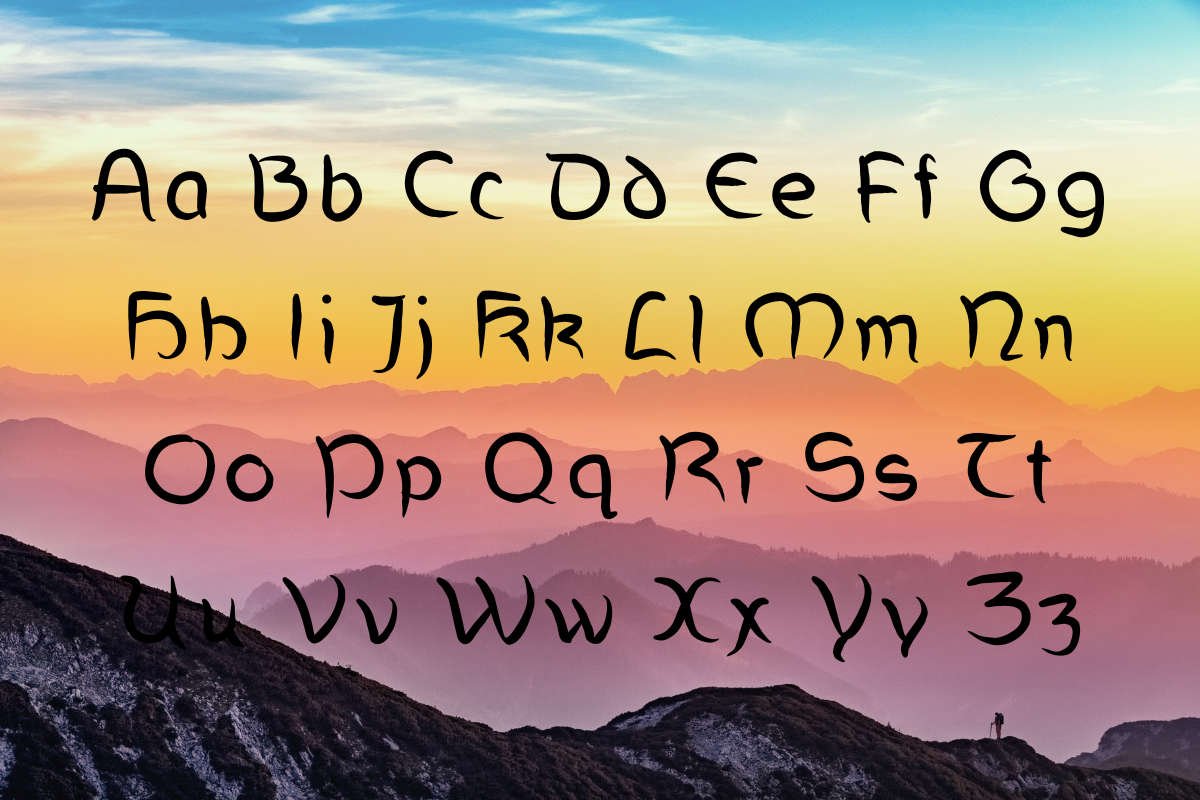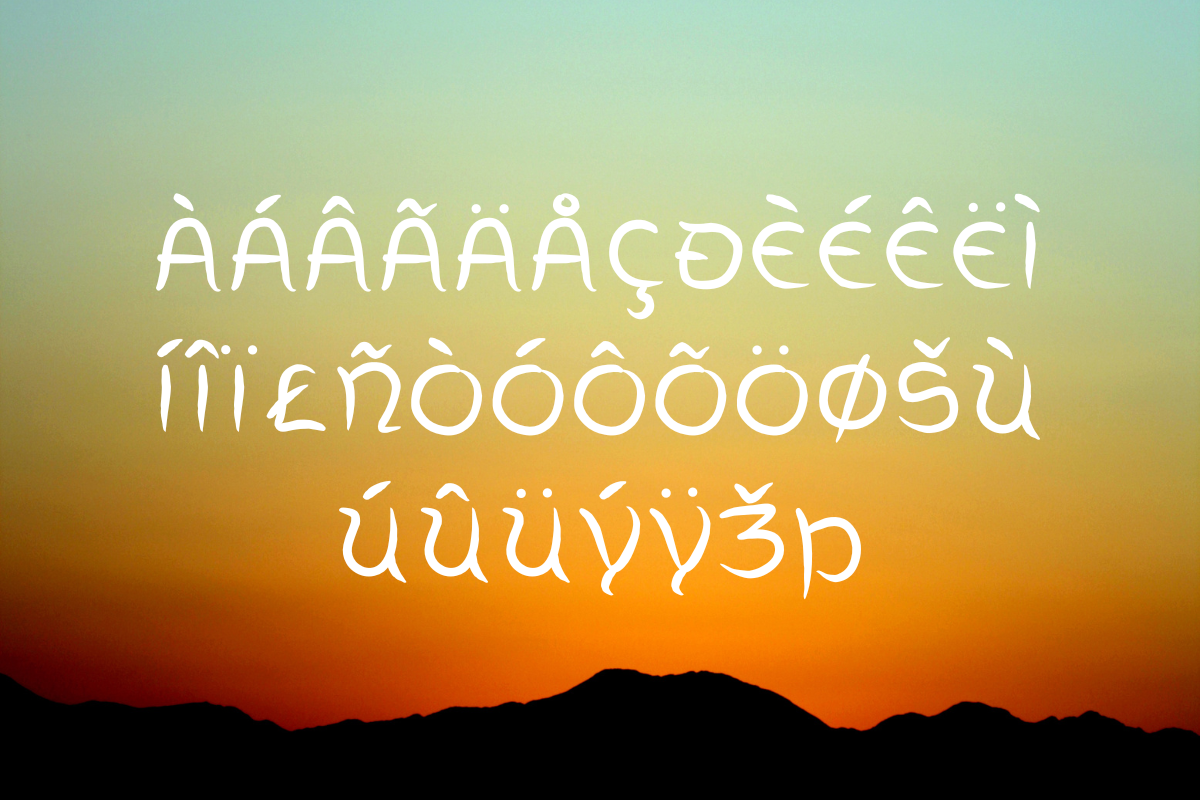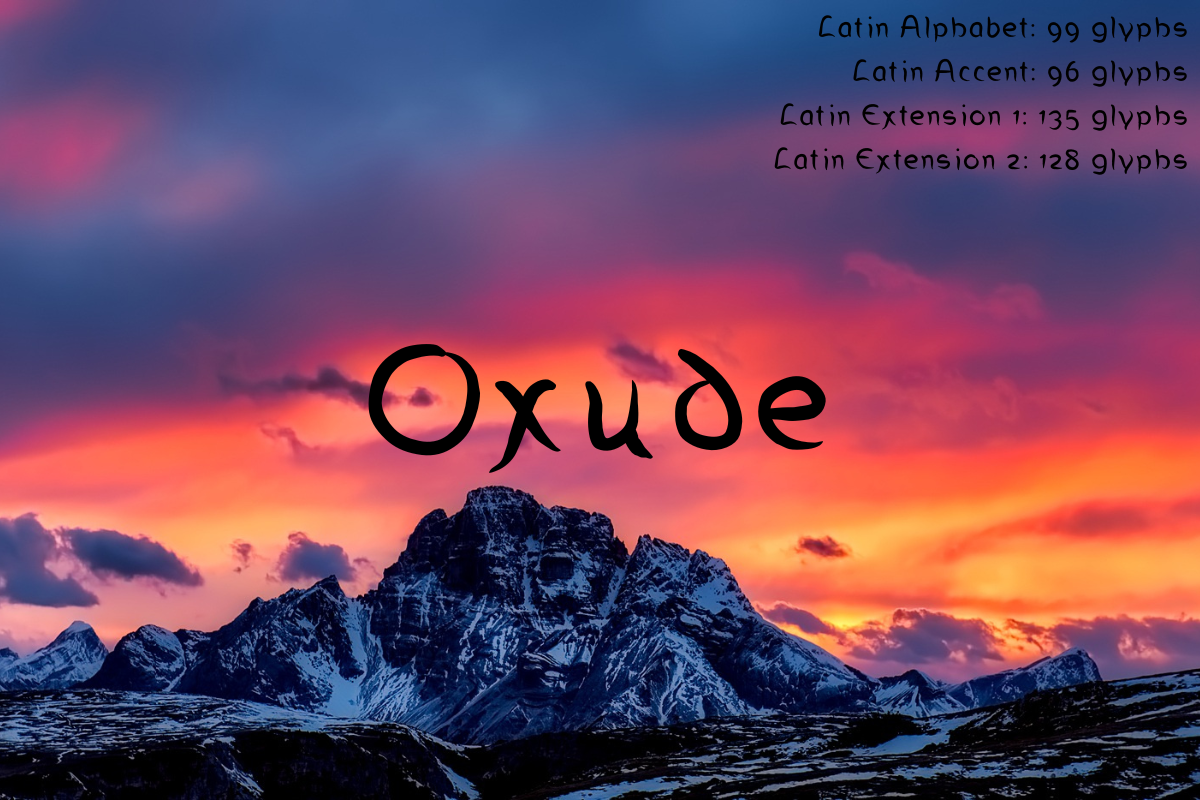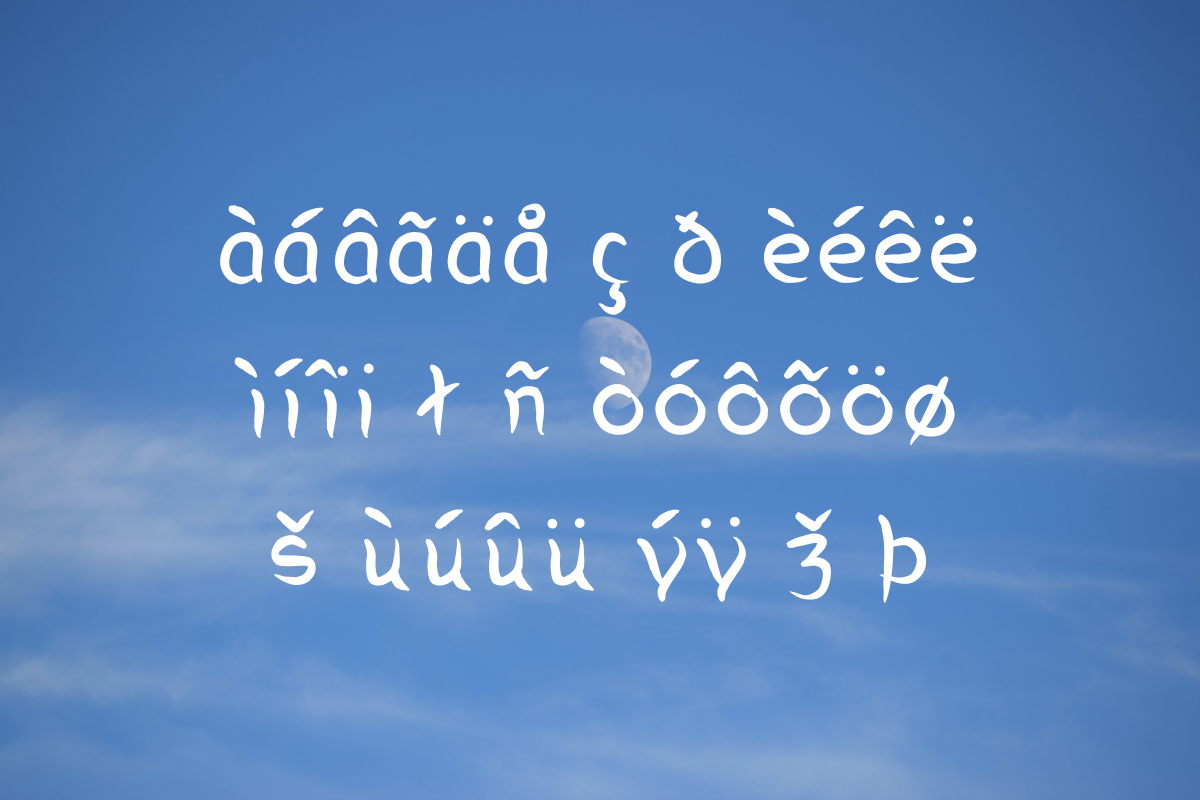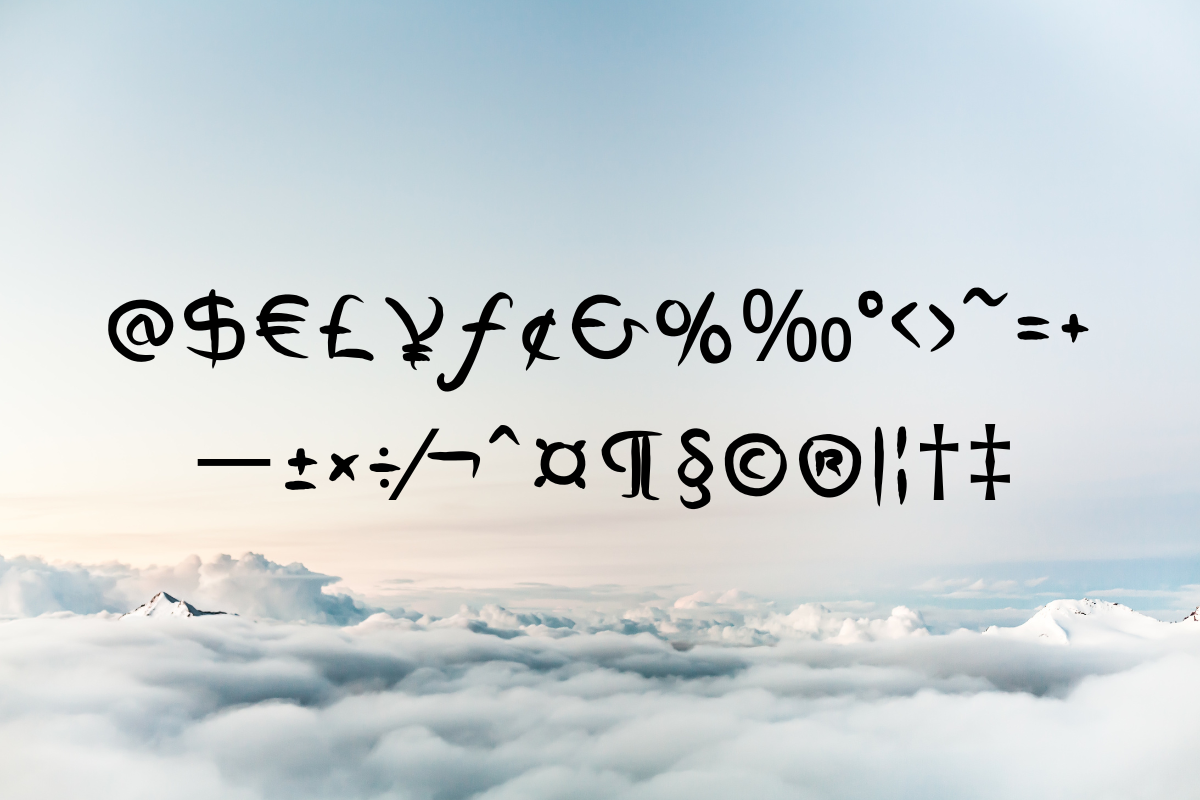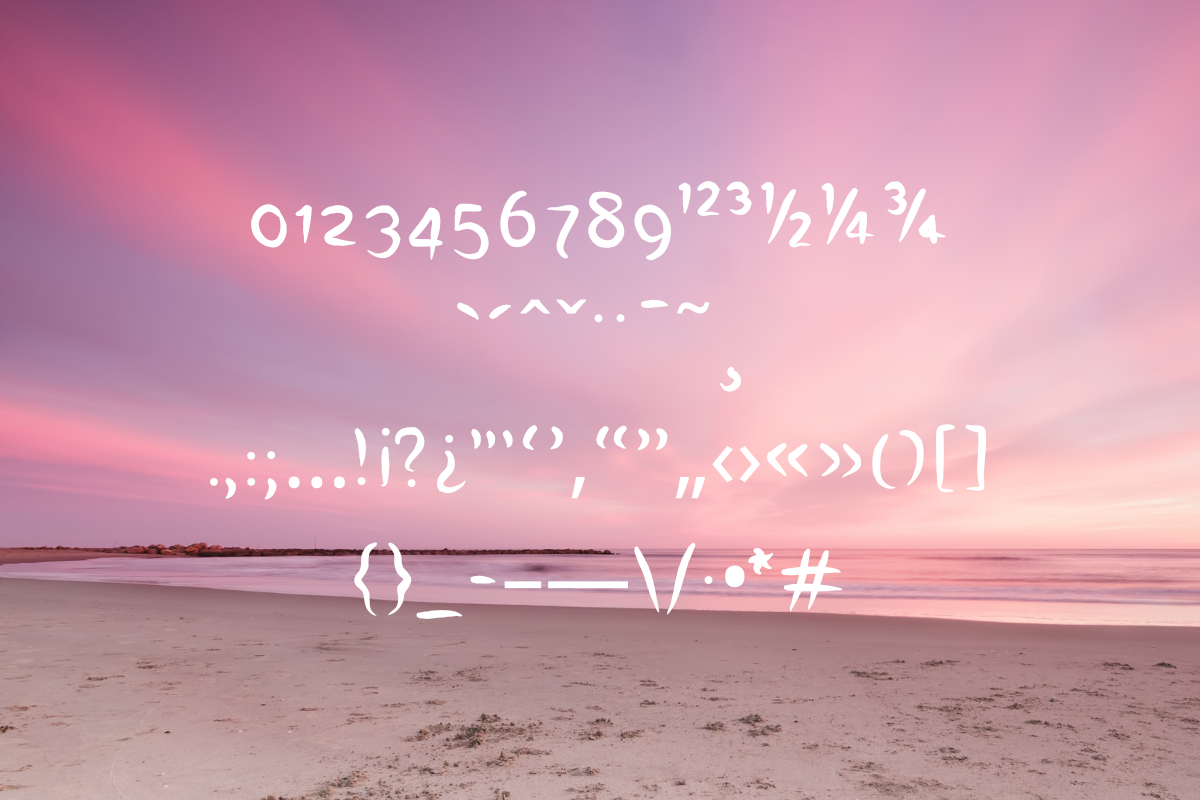
Oxude font
Oxude is an Old English style font with full Latin Alphabet, Latin Accent, Latin Extension 1 & 2 glyphs a total of 458 glyphs. Contains .ttf .otf .woff and .woff2 files.